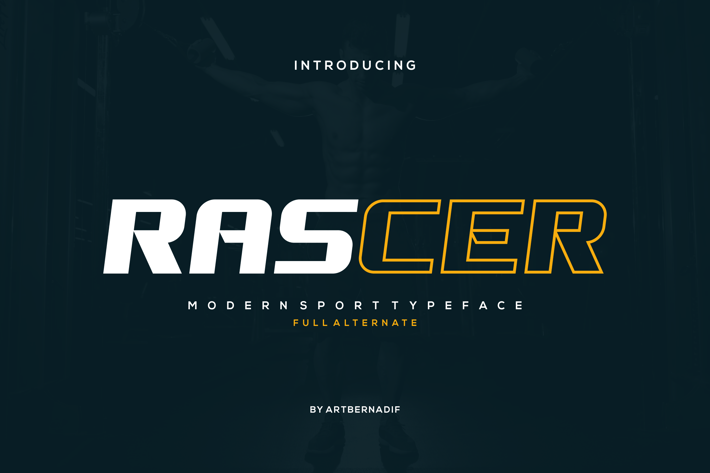
Rascer - Modern Sport Typeface
Introducing our new product Rascer Font Modern Sport Typeface
Rascer Font Modern Font is a bold and authentic display font. The font is suitable for any branding project like logo, t-shirt printing, esport, and many more.
outstanding in a wide range of contexts.
Rascer Uppercase
* Rascer Alternate